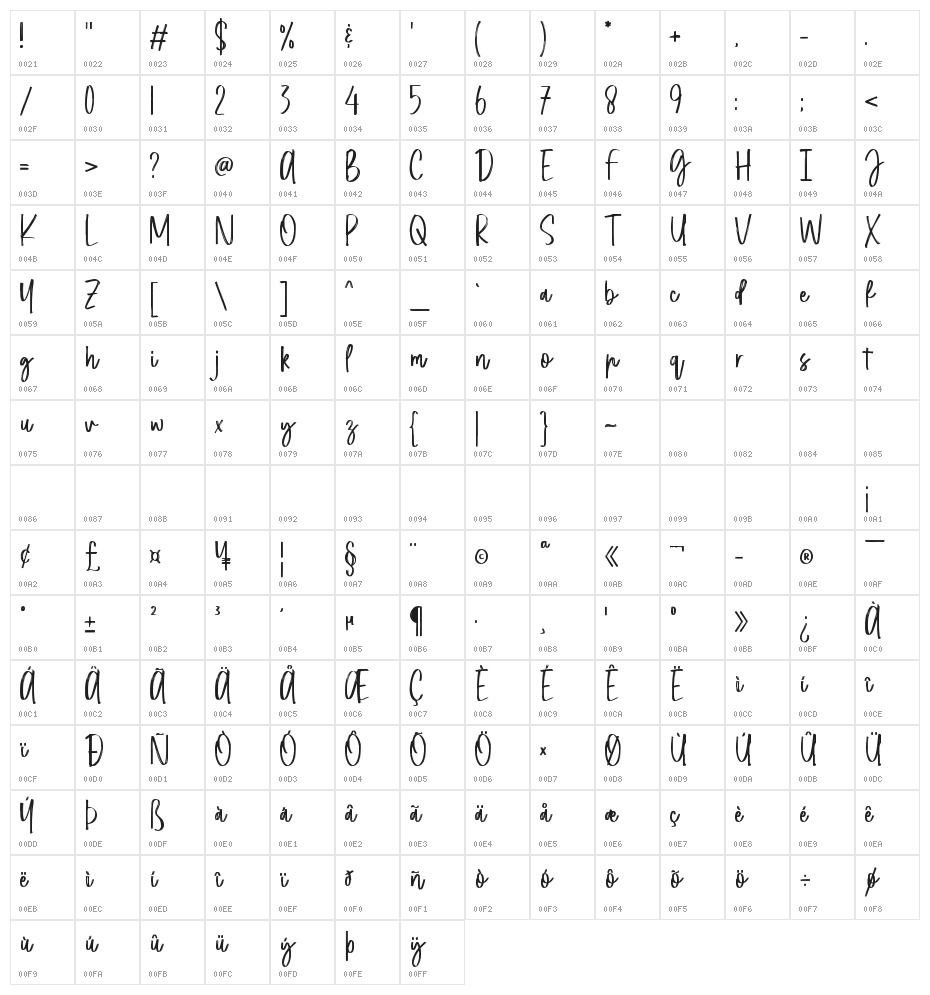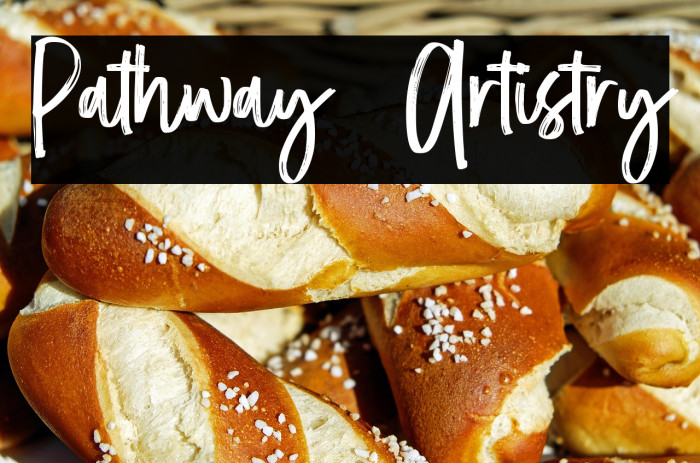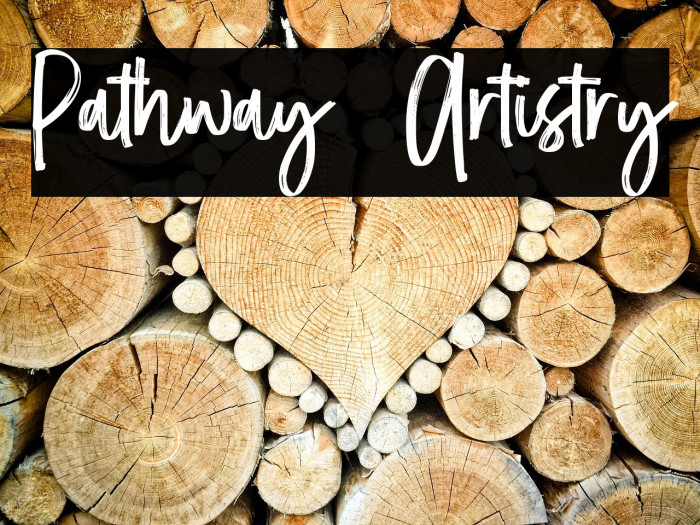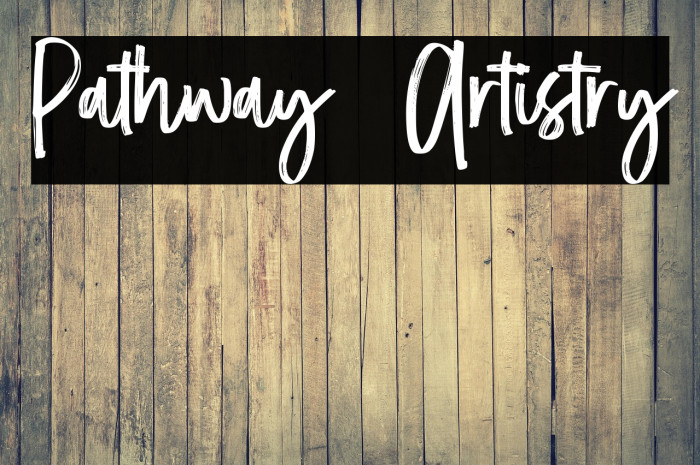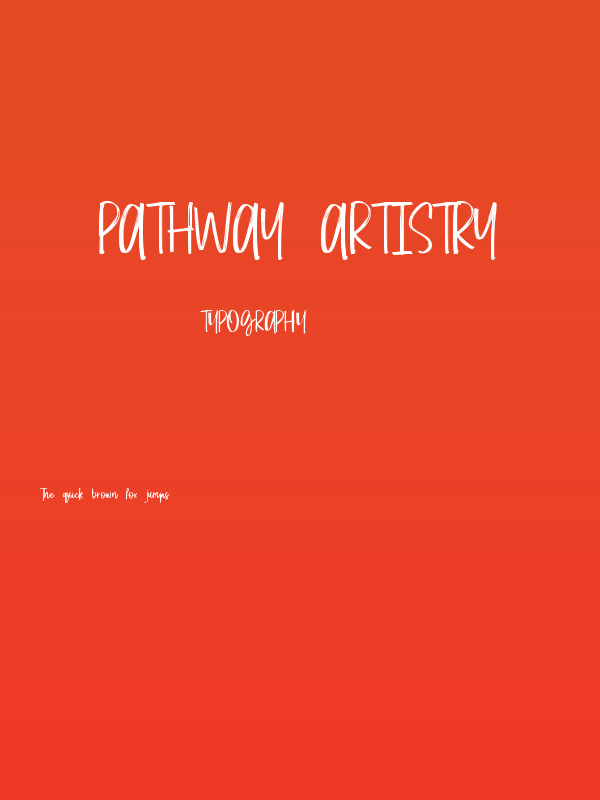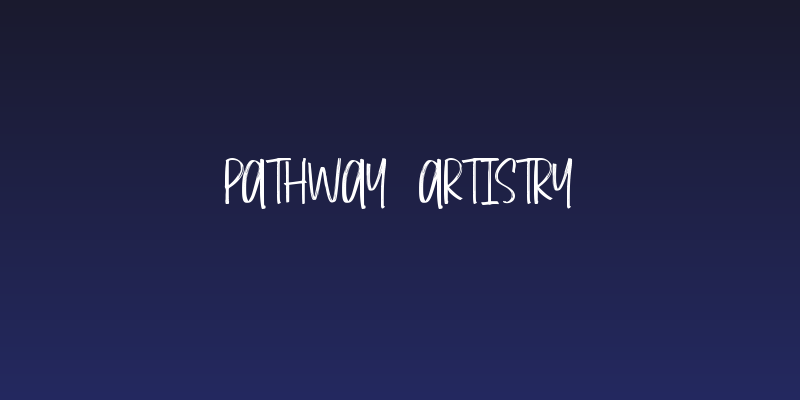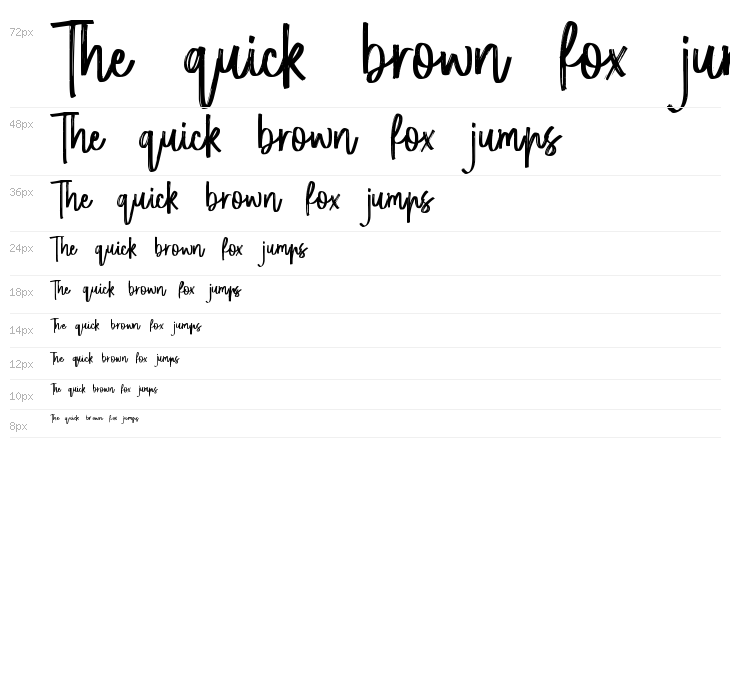
Pathway Artistry Font
Pathway Artistry Description
This font features a dynamic and artistic style, combining elements of both handwritten and display fonts. The uppercase letters are tall and narrow, with a playful, slightly irregular stroke that adds a sense of movement and energy. The lowercase letters maintain the same lively character, with a more fluid and cursive appearance, enhancing the handwritten feel. The numerals are consistent with the overall style, offering a cohesive look. Special characters are creatively designed, fitting seamlessly into the font's aesthetic. This font's unique personality makes it suitable for creative projects that require a touch of individuality and flair.